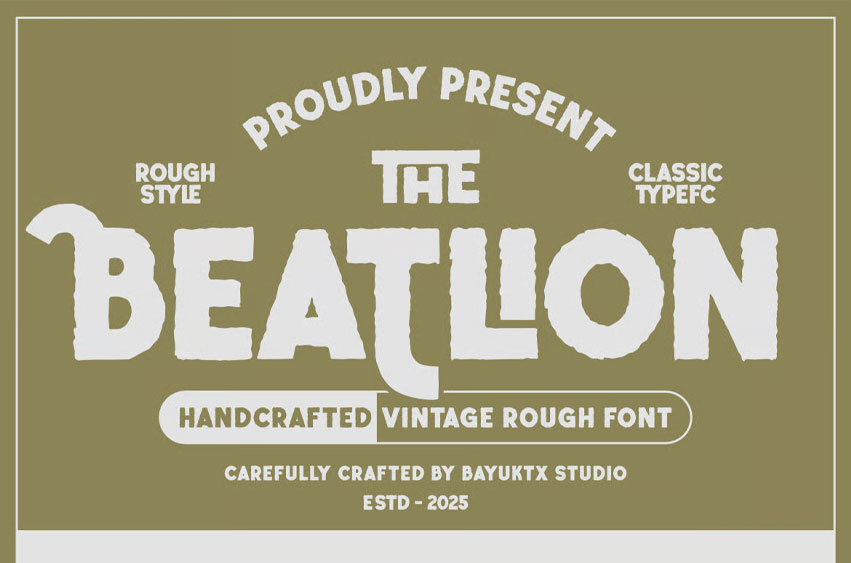
Beatlion Font
Beatlion Font is a handcrafted vintage rough font that combines vintage charm with a bold, rustic attitude. Designed with a natural rough texture, it delivers an authentic handcrafted look inspired by classic sign painting, retro posters, and old-style branding. Each letter carries a strong handmade spirit that brings warmth and personality to your design.
Perfect for branding, packaging, merchandise, posters, and typography art, The Beatlion adds a raw yet refined edge to any creative project. Its handcrafted strokes and imperfect outlines give a natural feel — ideal for designs that seek authenticity and strength.
Suitable For :
• Vintage Posters & Flyers
• Logos & Branding
• Quotes & Typography Design
• Fashion & Merchandise
• Packaging & Labels
Bring your projects to life with The Beatlion, a handcrafted Vintage Rough font that embodies character, creativity, and timeless rough beauty.